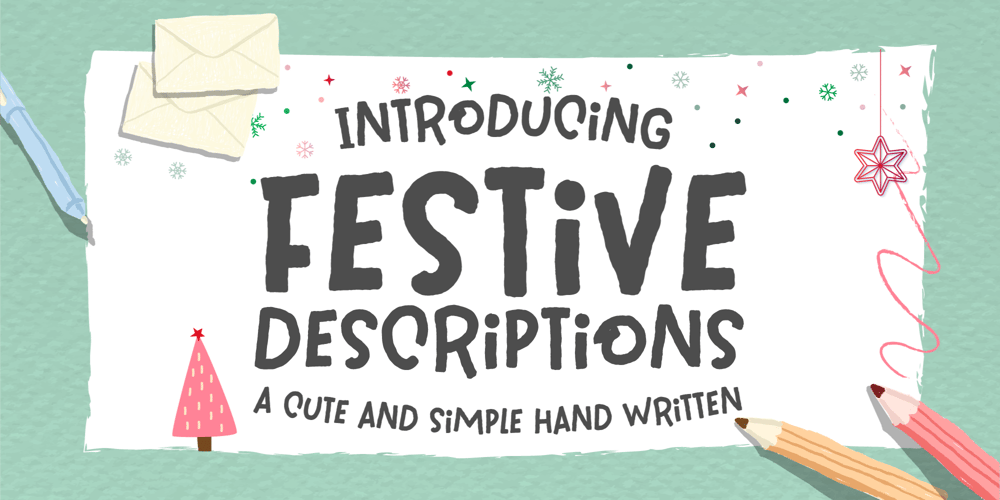
Festive Descriptions Font Family was designed by Ake Thanantreesak and published by Ake. Festive Descriptions contains 2 styles and family package options. Festive Descriptions is a cute and simple lettered handwritten font that can be used for all chalkboard quotes or teaching material! Its authentic look will add a personal and realistic feel to your designs.